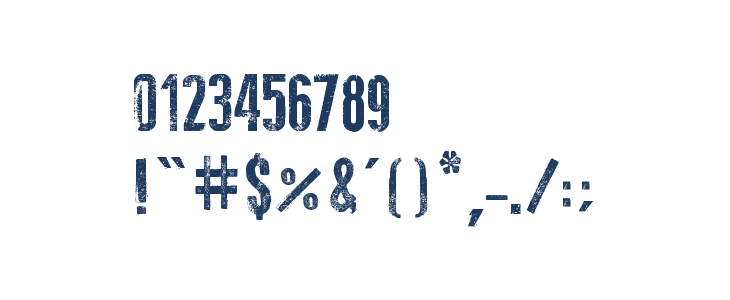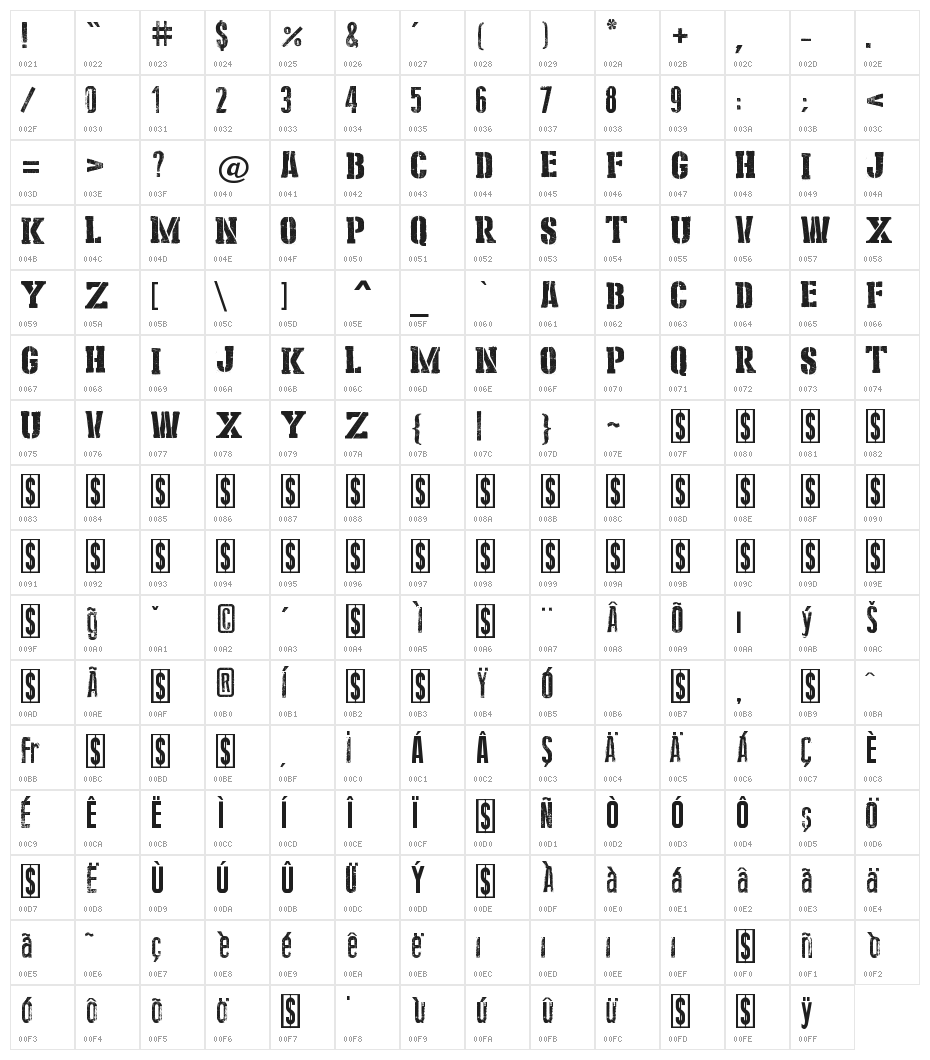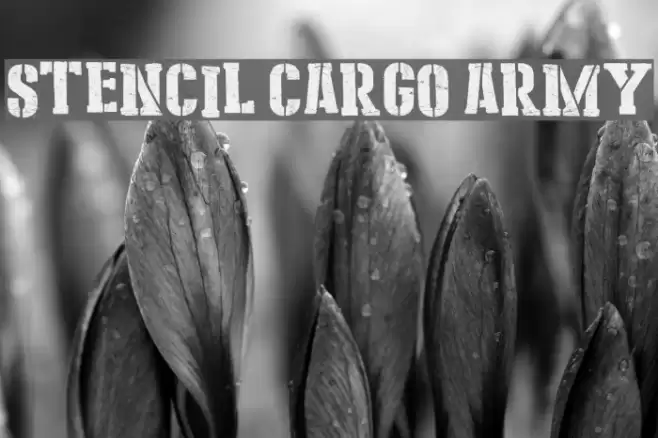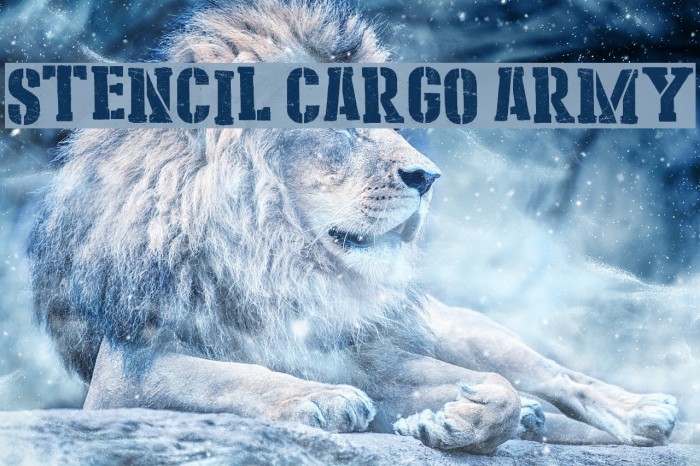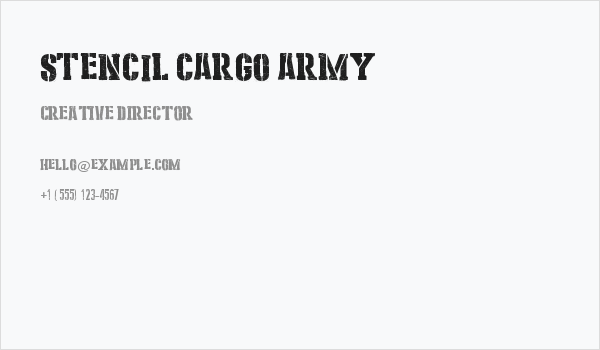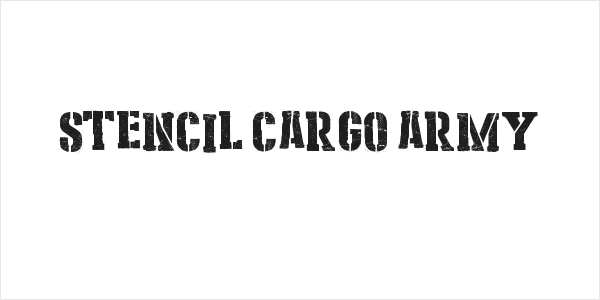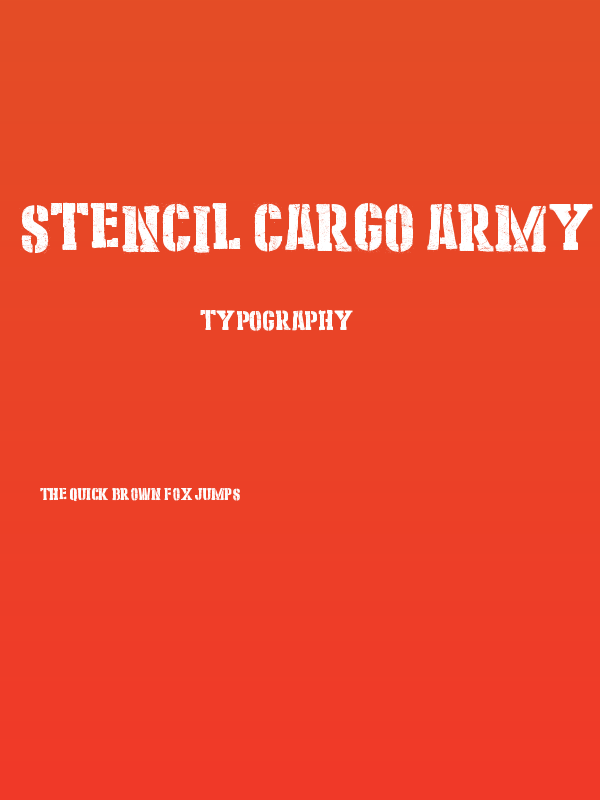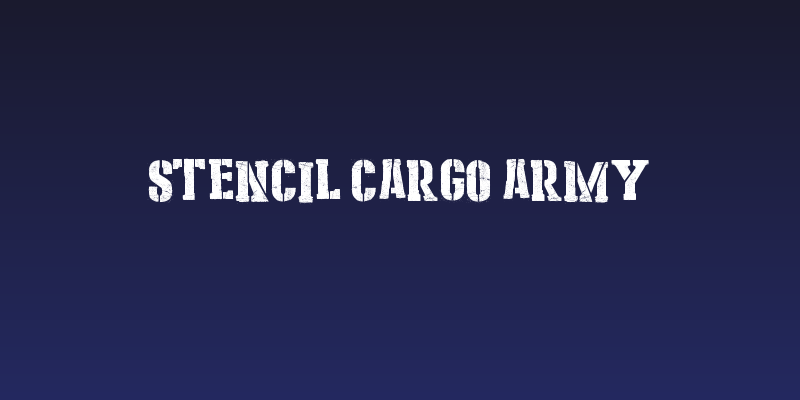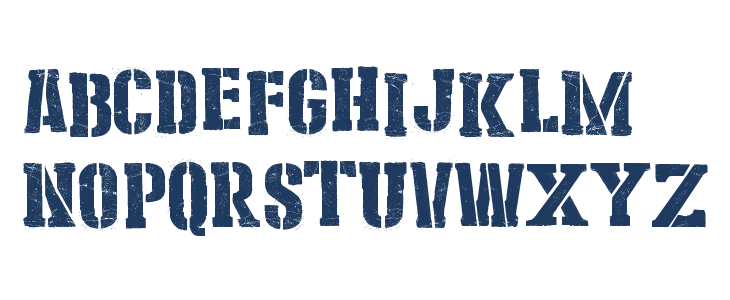
Stencil Cargo Army Font
Stencil Cargo Army Description
This font embodies a rugged, military-inspired aesthetic with its bold, stencil-like design. The characters are robust and impactful, featuring a distressed texture that adds a sense of authenticity and grit. The uppercase letters are prominent and commanding, while the numerals and special characters maintain the same bold presence. The design is reminiscent of cargo markings and army stencils, making it ideal for projects that require a strong, authoritative look. Its unique style is both functional and decorative, suitable for creating a sense of urgency or importance.
Use CaseHeadlines, Logos, Posters, Signage
Proposed ProjectsIdeal for military-themed designs, posters, packaging, branding, and signage that require a strong, authoritative presence.